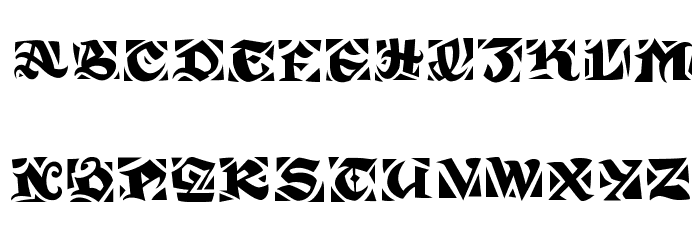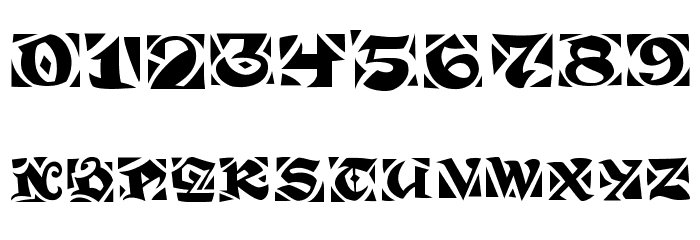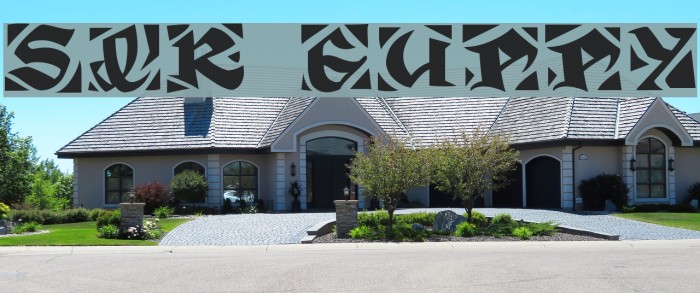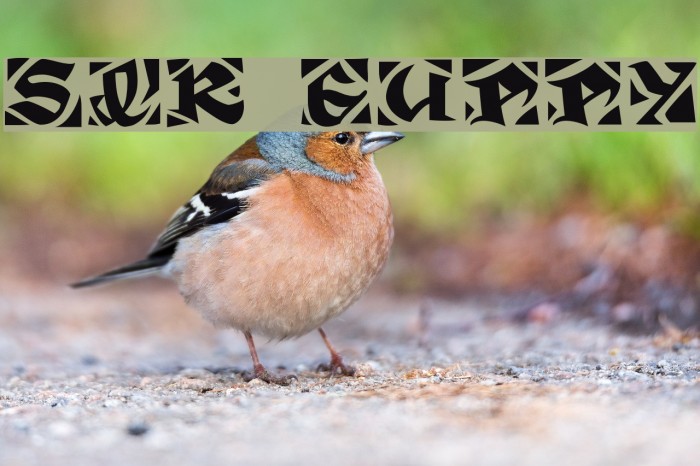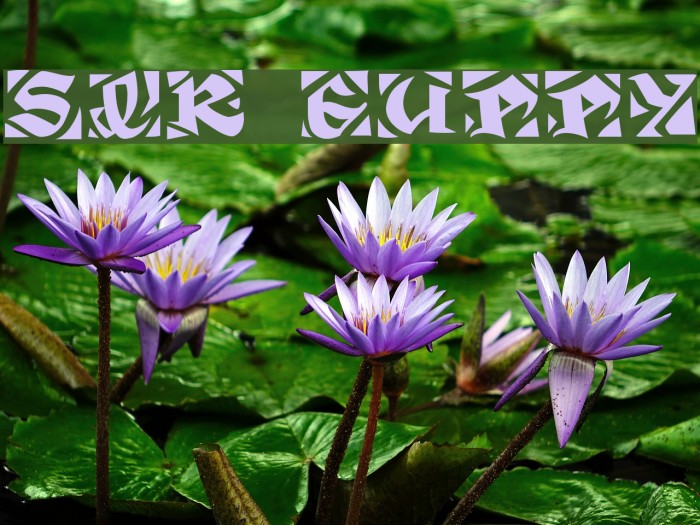
Sir Guppy Font
This font features a bold and intricate design, characterized by its heavy use of geometric shapes and sharp angles. The letters are highly stylized, with each character incorporating unique cutouts and patterns that create a sense of movement and complexity. The overall appearance is striking and modern, with a strong visual impact that makes it ideal for attention-grabbing designs. The numbers and special characters follow the same design principles, ensuring consistency across all glyphs. The font's decorative nature makes it suitable for creative projects where a bold statement is desired.
A bold, geometric font with intricate cutouts and sharp angles for a striking, modern look.
- Proposed Projects: Ideal for posters, album covers, branding, and any project requiring a bold, artistic touch.